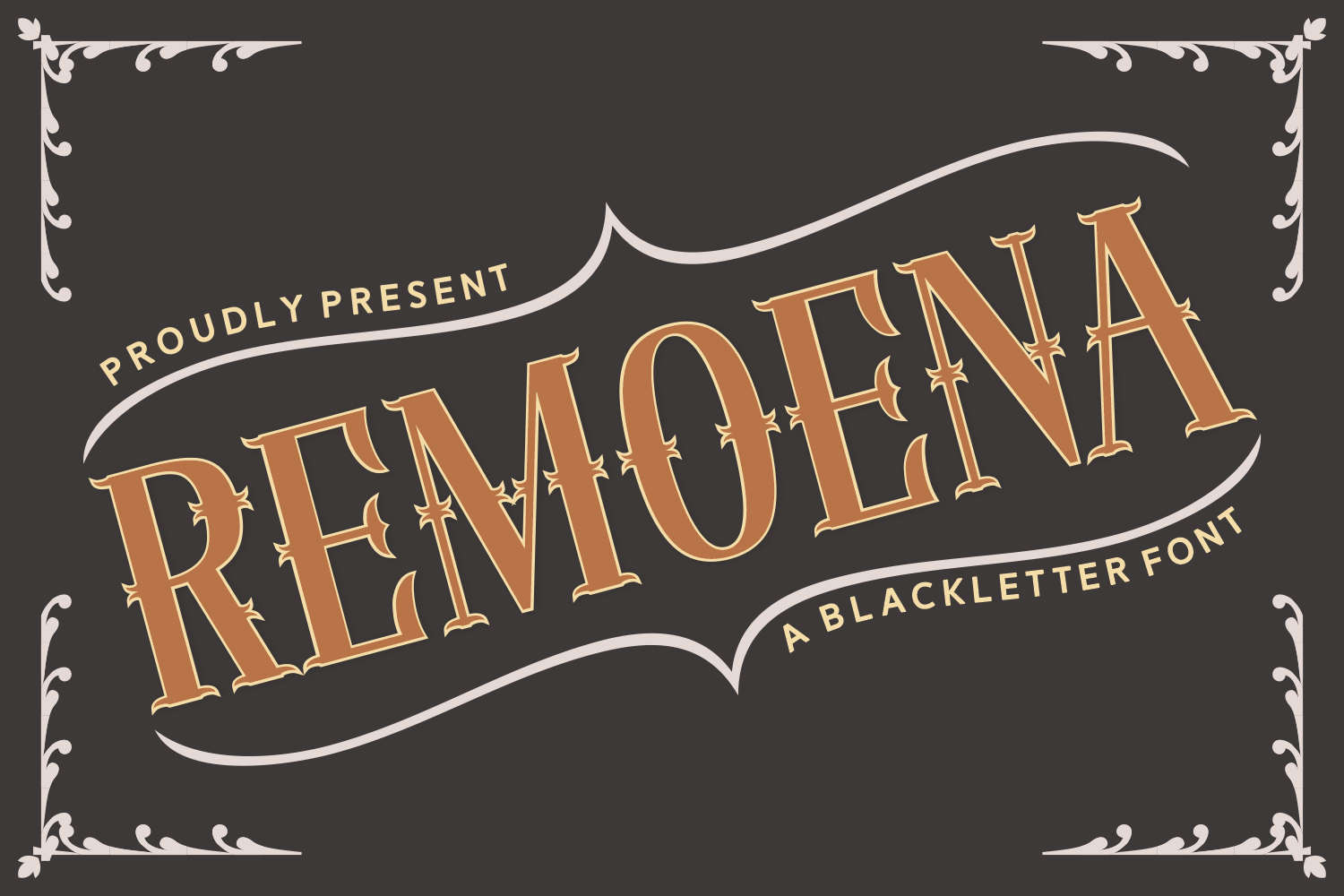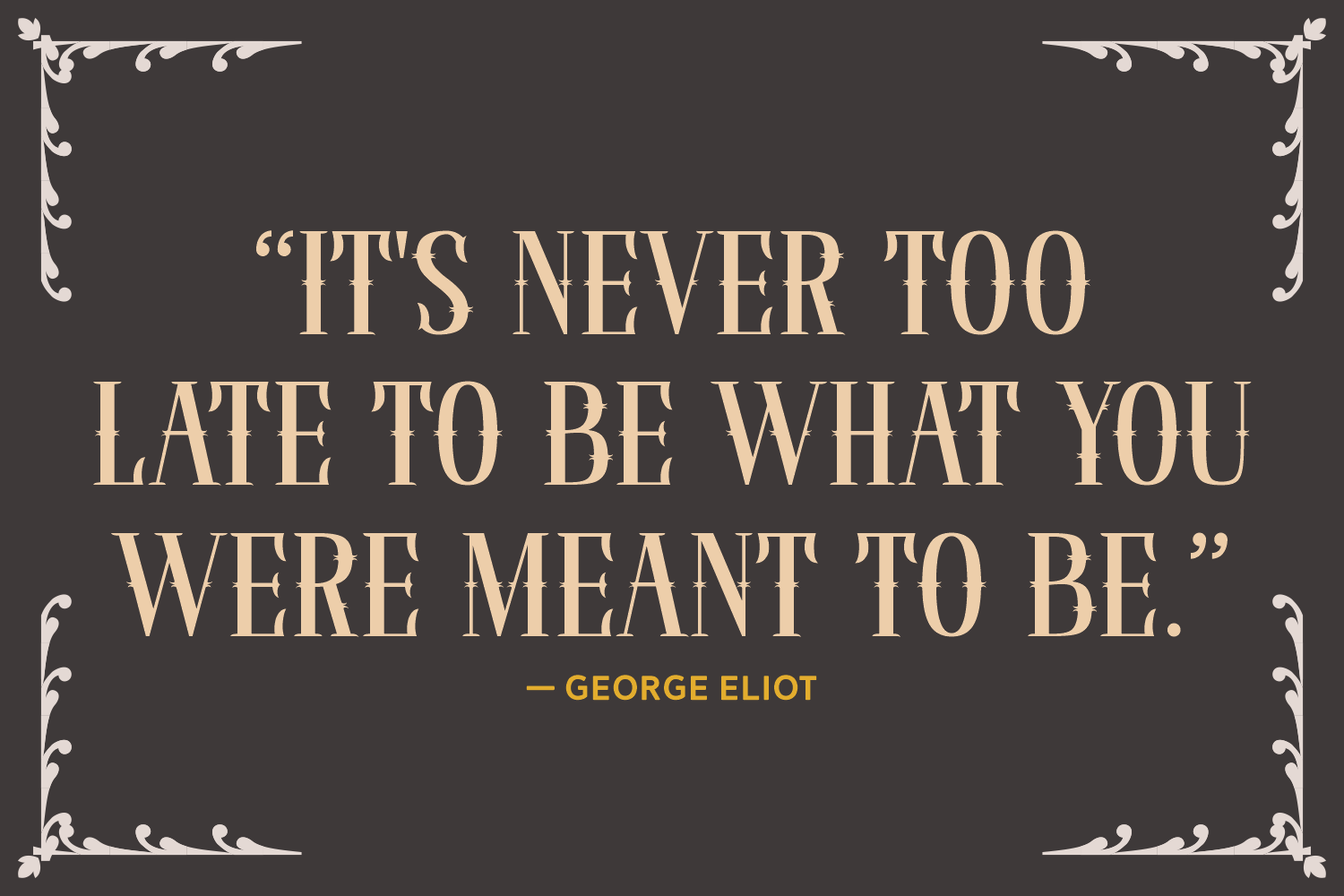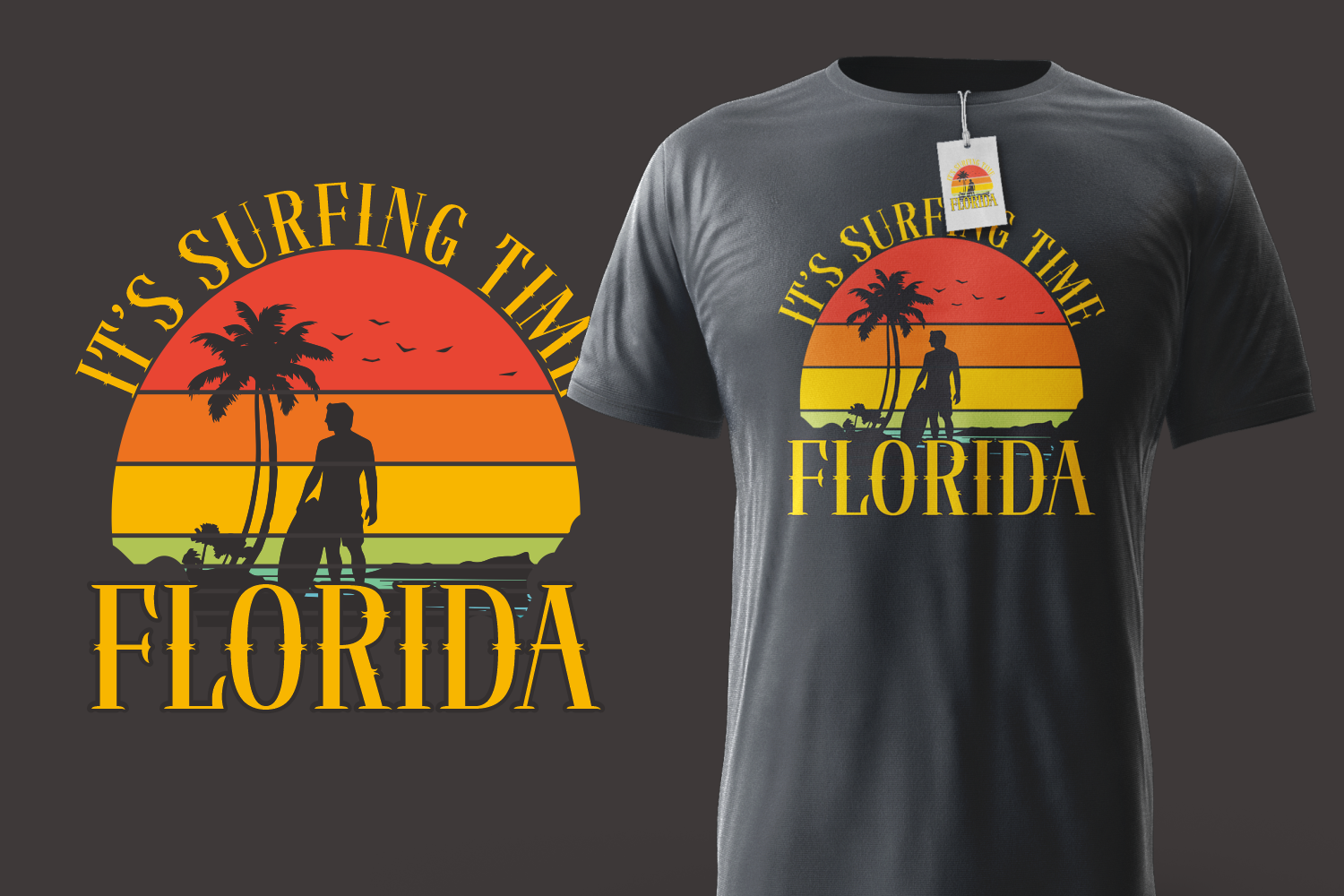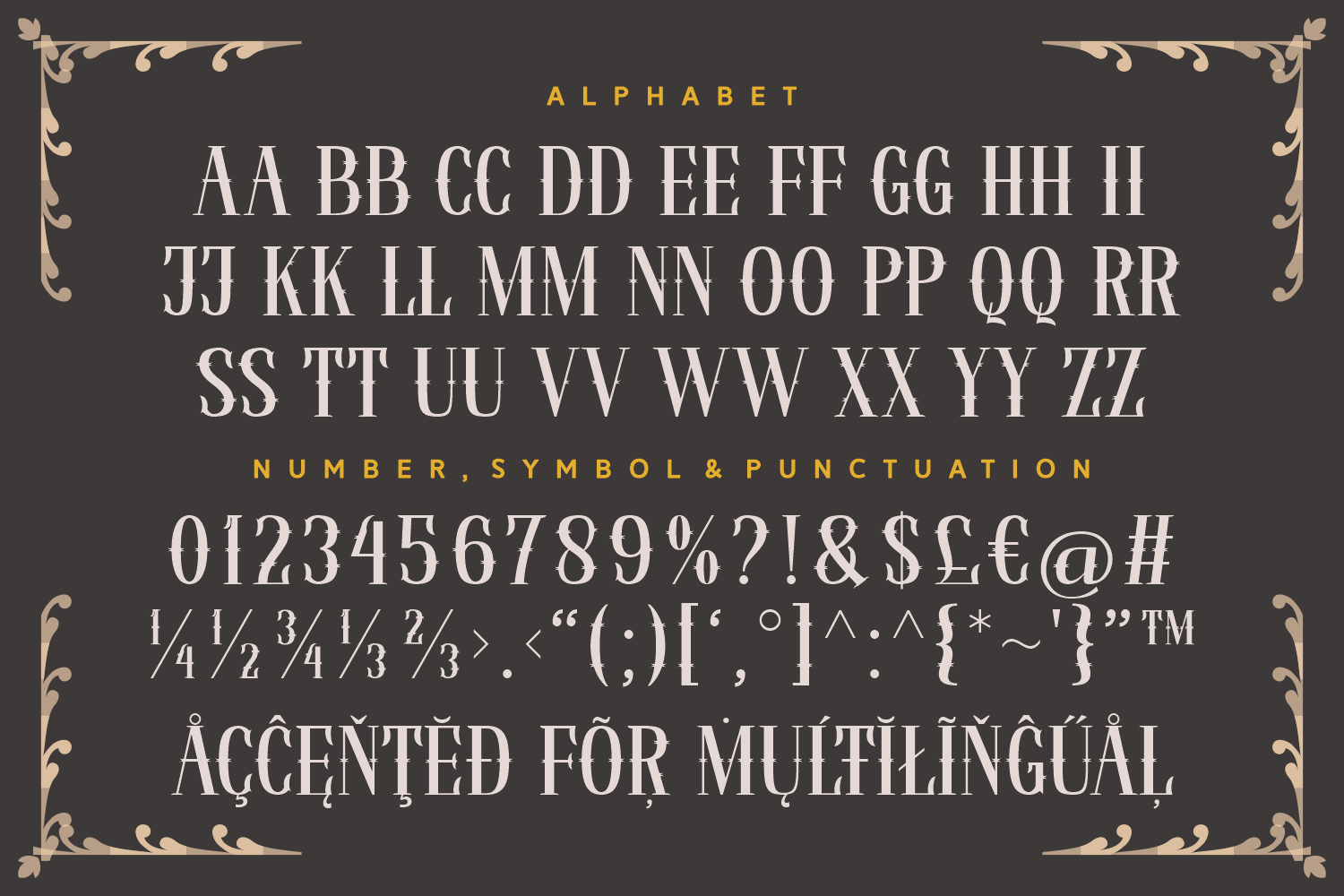
Remoena is a stylish and elegant blackletter font that blends classic sophistication with gothic flair. Featuring ornate spikes and delicate curves, this typeface adds a vintage charm to packaging, signage, and boutique branding.
Whether you're crafting a logo or a wine label, Remoena brings a sense of refinement and drama. Its graceful structure makes every word look like a piece of art.